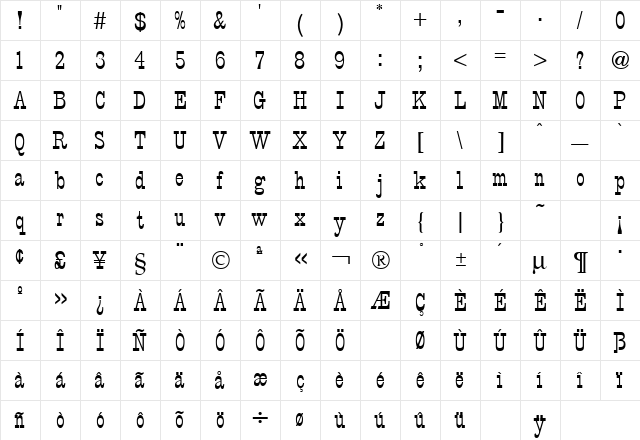
P.T. Barnum Regular
Design Context for P.T. Barnum Typeface
P.T. Barnum takes a measured approach to typography — its balanced proportions and neutral character make it a reliable workhorse for both digital and print work.
Pro Tip: Pair P.T. Barnum with a font of contrasting weight or personality to build a more expressive typographic hierarchy.